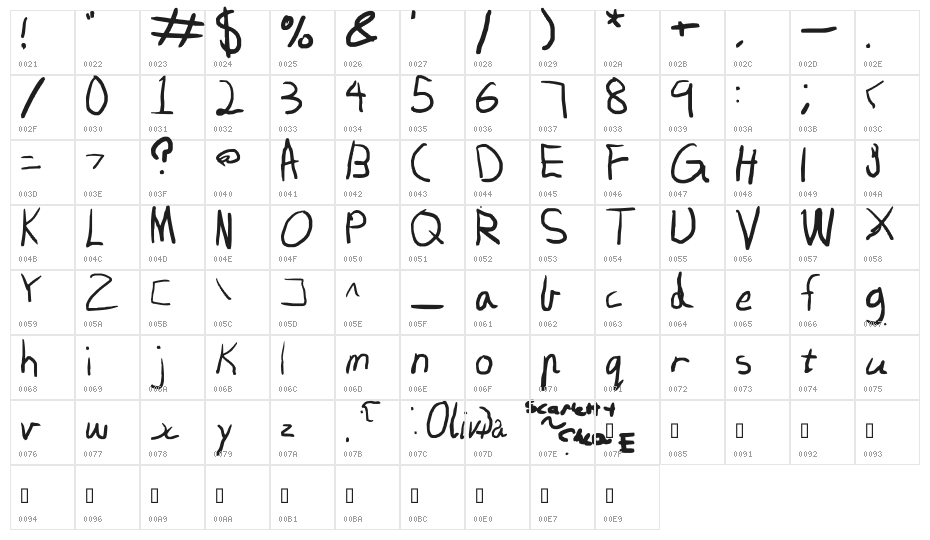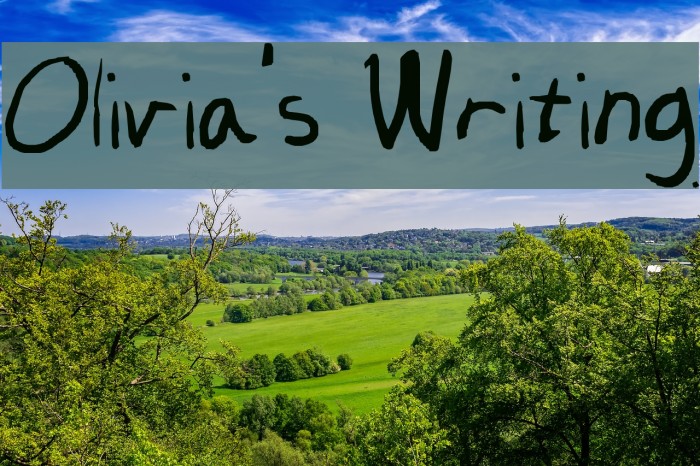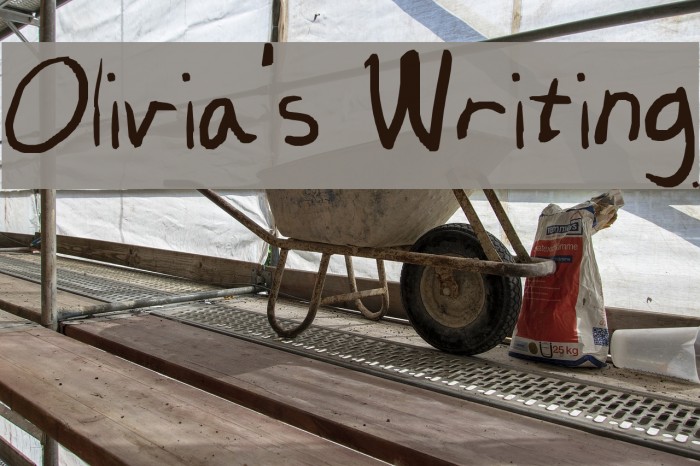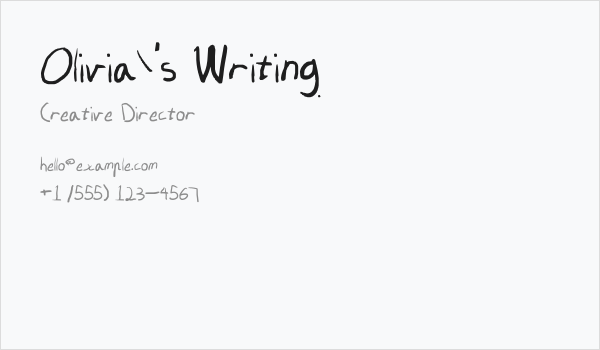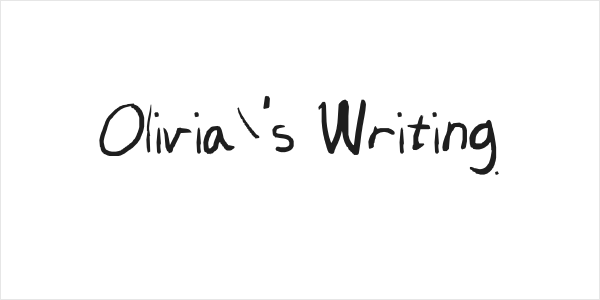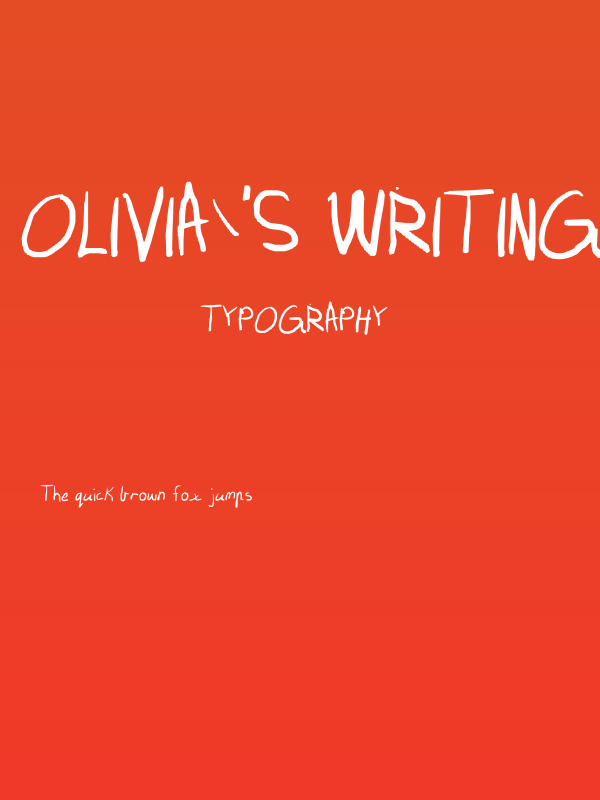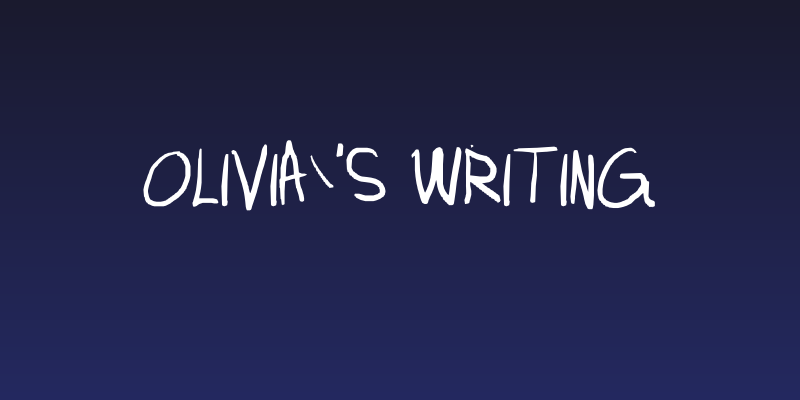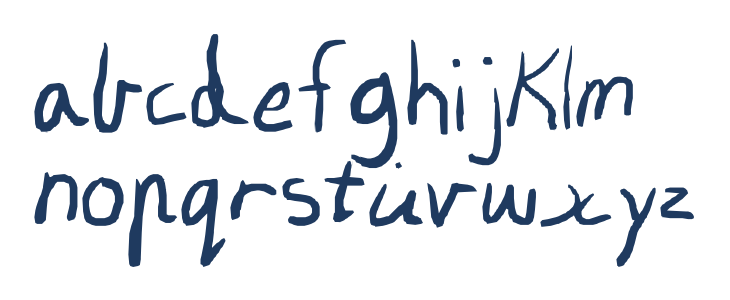
Olivia's Writing Font
Olivia's Writing Description
This font exudes a playful and informal handwritten style, characterized by its uneven strokes and casual appearance. The letters have a natural, free-flowing form that mimics the spontaneity of handwriting. The uppercase and lowercase letters maintain a consistent style, with some variations in stroke thickness that add to its charm. The numbers and special characters follow the same informal aesthetic, making the font versatile for creative projects. Its unique personality makes it suitable for designs that require a personal touch, such as greeting cards, invitations, or casual branding.
| Proposed Projects | Ideal for greeting cards, invitations, casual branding, and creative projects needing a personal touch. |